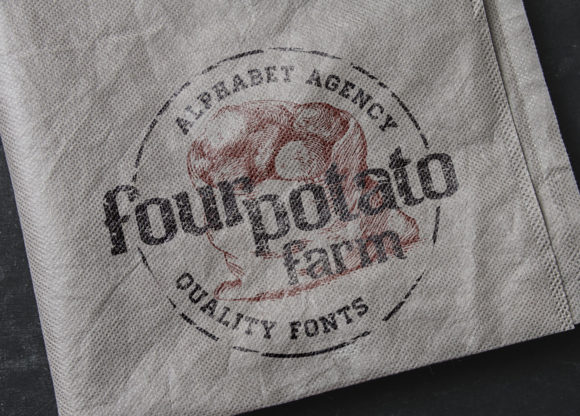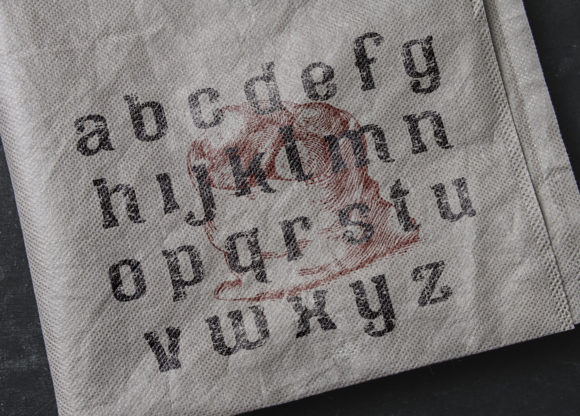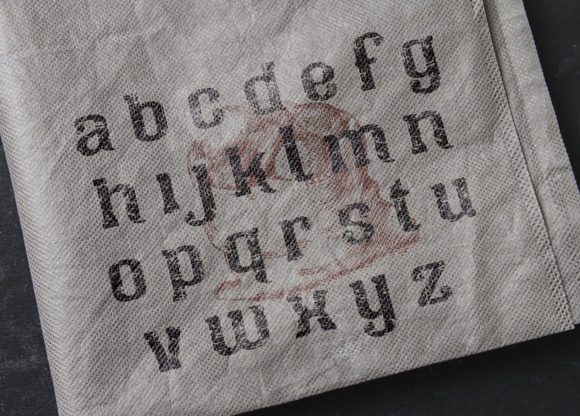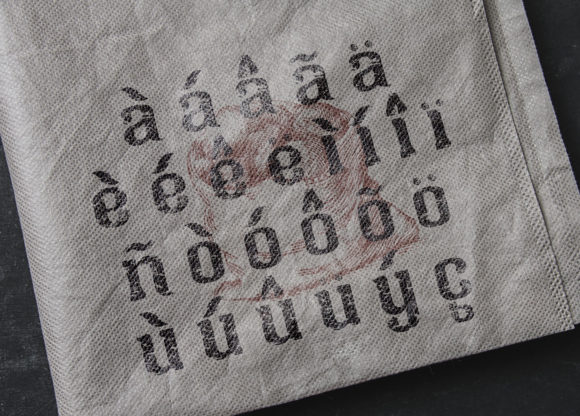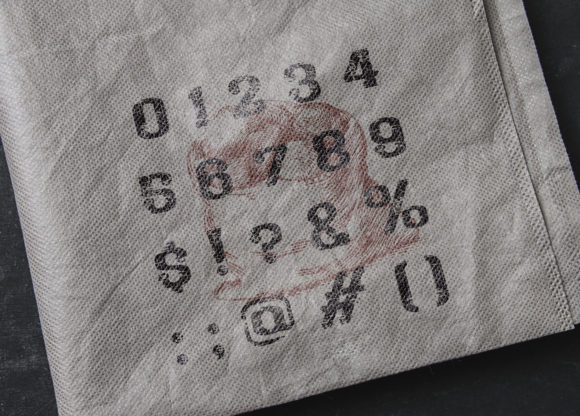
Four Potato Farm is a cool, bold and rough textured display font. No matter the topic, this font will be an incredibly asset to your fonts’ library, as it has the potential to elevate any creation.
Four Potato Farm Font